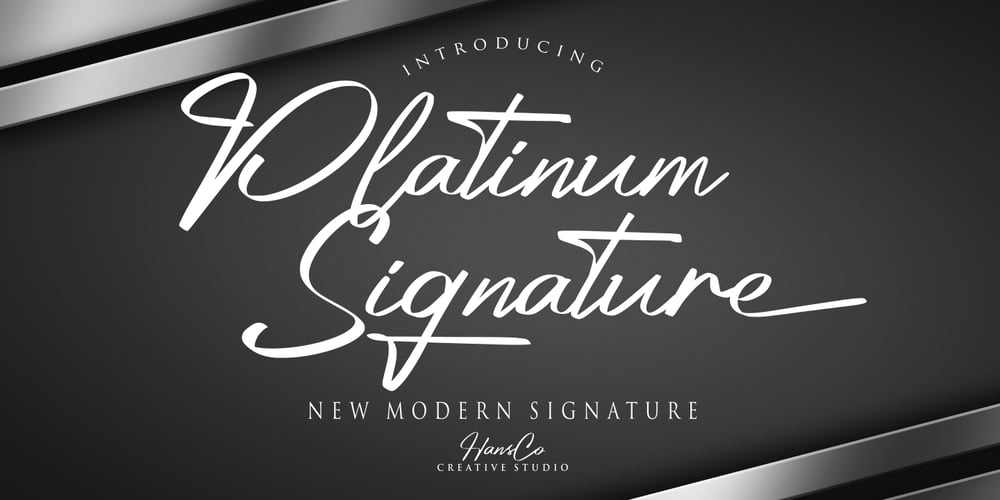
Platinum Signature
Platinum Signature font
Platinum Signature Font Family was designed by Burhan Afif and published by HansCo. Platinum Signature contains 1 styles and family package options. Platinum Signature is our new modern, clean, and stylish signature font and was created to look as a naturally handwritten as possible. Built with OpenType features, this script comes to life as if you are writing it yourself. This font is very suitable to be used to brand a product because if you write a brand name it will look like your company signature. Platinum Signature is perfect for photographers, bloggers, trademarks, magazines, fashion, wedding invitations, greeting cards and much more. It’s highly recommended to use it in OpenType capable software – like a Coreldraw, Photoshop, Illustrator and Indesign. This font come with Uppercase, Lowercase, Numbers, Punctuation and swash. It offers Multilingual Support, works on Mac and Windows OS and is easy to install.Tutorial how to Install & use Alternate / Special Character : https://hanscostudio.com/tutorial/Enjoy!